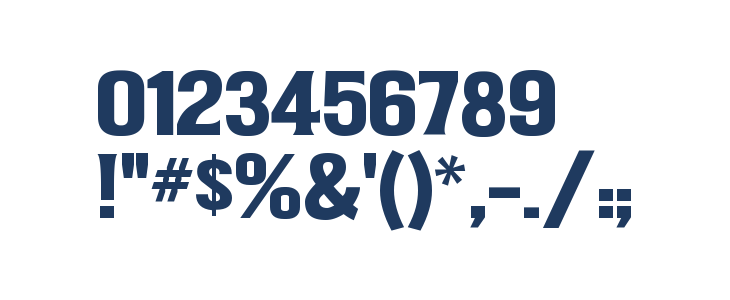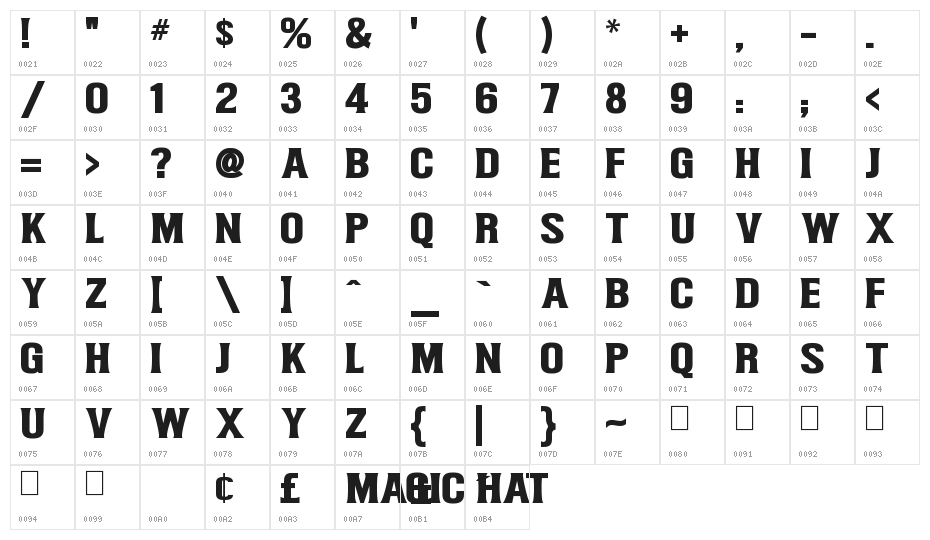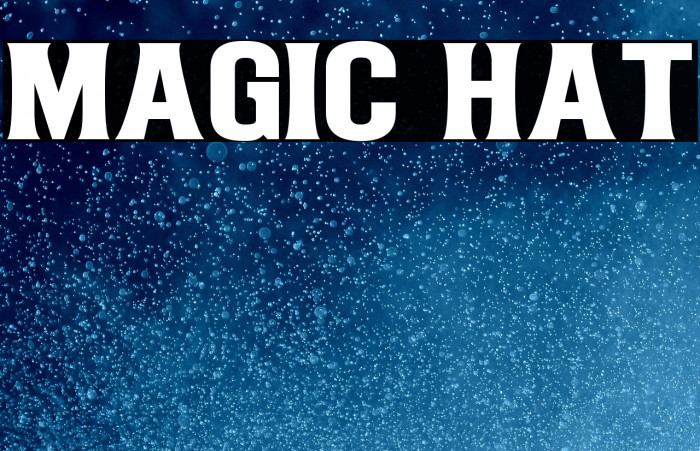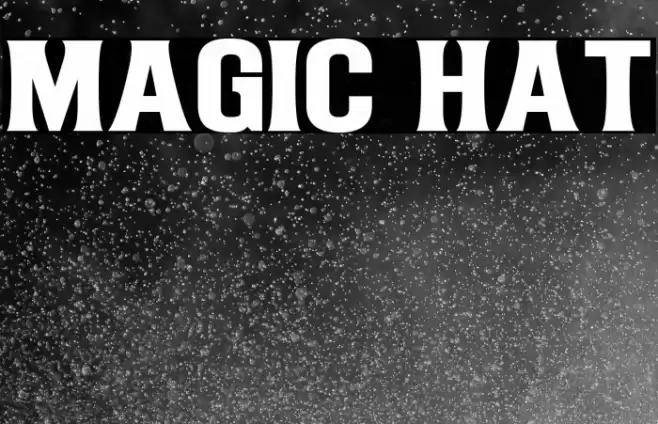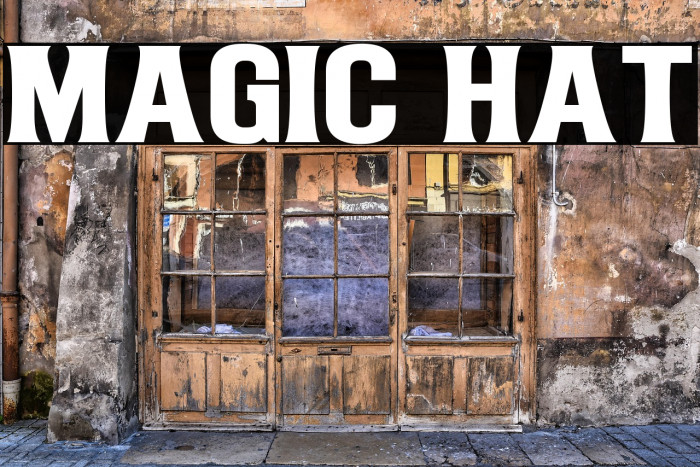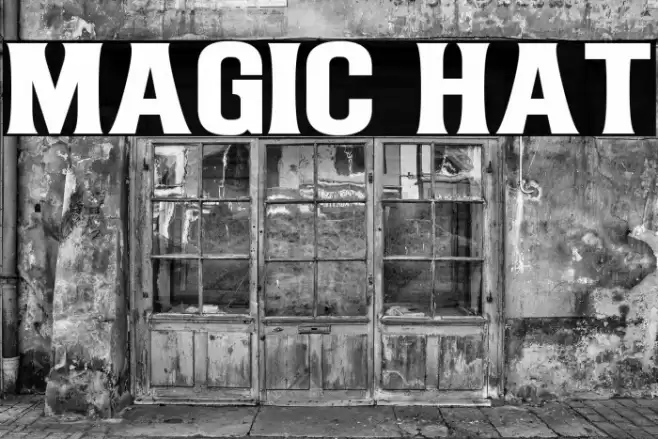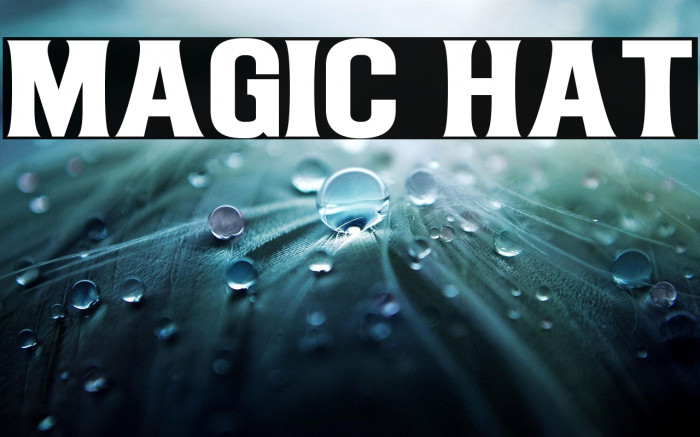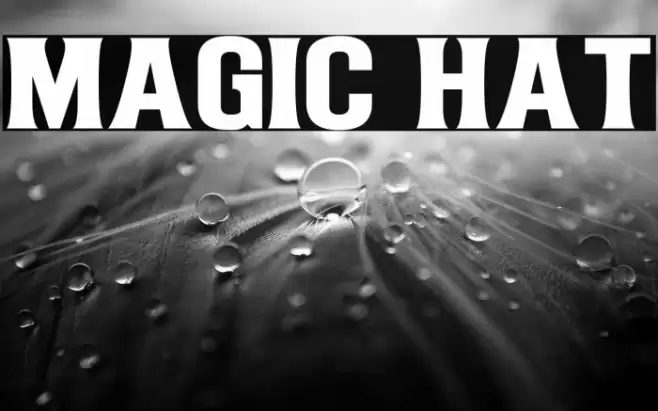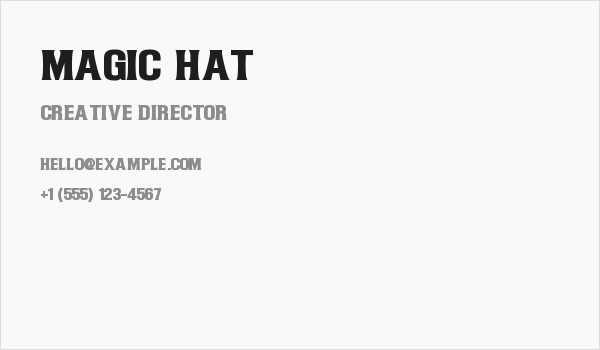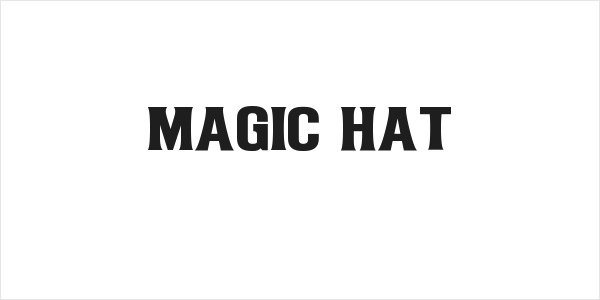
Magic Hat Font
Magic Hat Description
This font features bold, strong characters with a distinct presence, making it ideal for impactful designs. The uppercase letters are robust and commanding, while the lowercase letters maintain a consistent weight, ensuring readability. The numerals are clear and well-defined, complementing the overall bold aesthetic. Special characters are crafted with precision, adding to the font's versatility. The design is modern yet timeless, suitable for a variety of applications where a strong visual statement is desired.
| Proposed Projects | Ideal for headlines, posters, branding, and any project requiring a bold statement. |